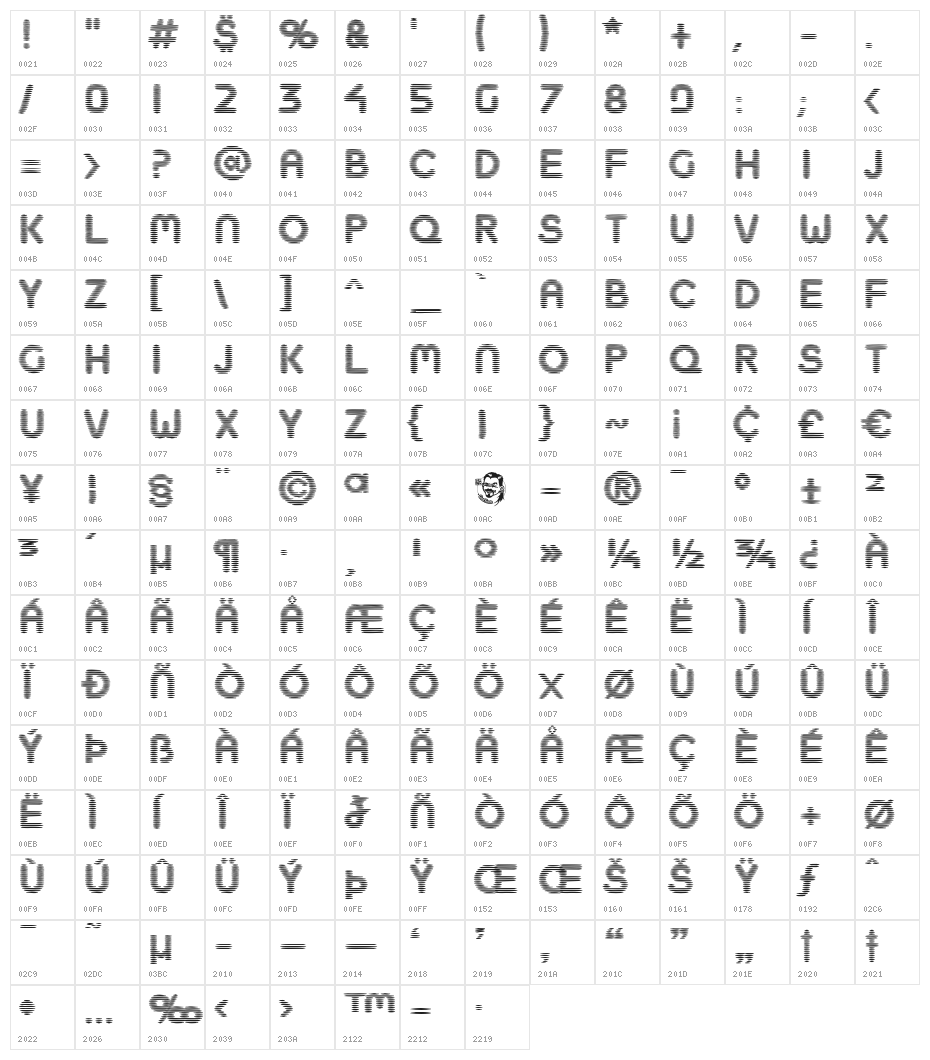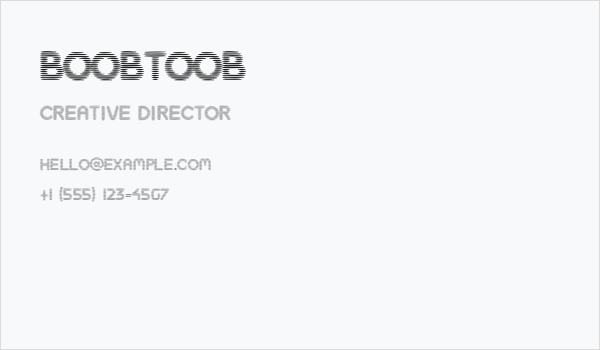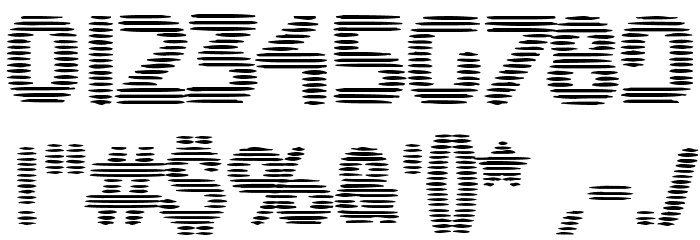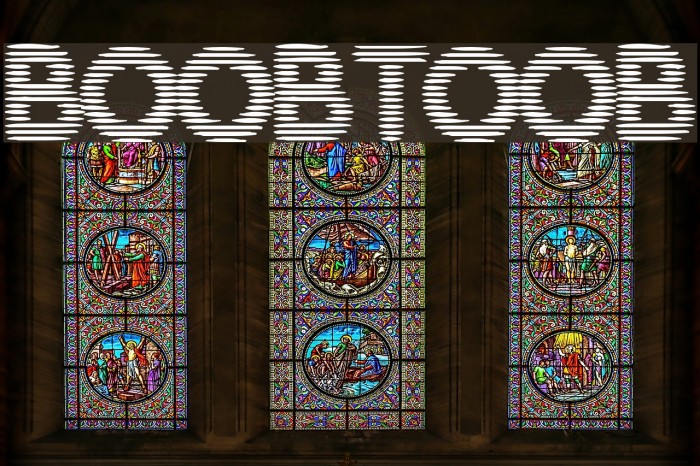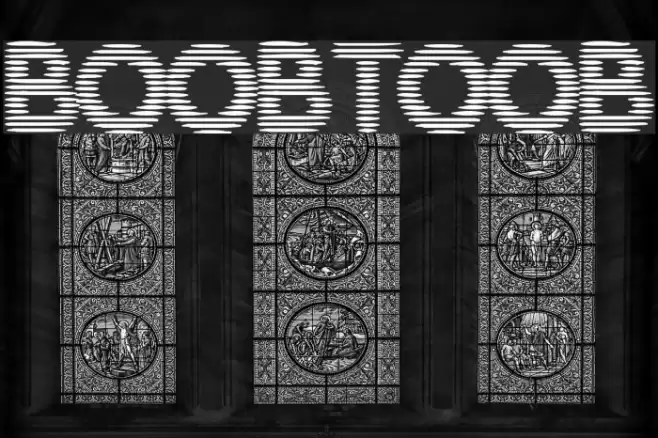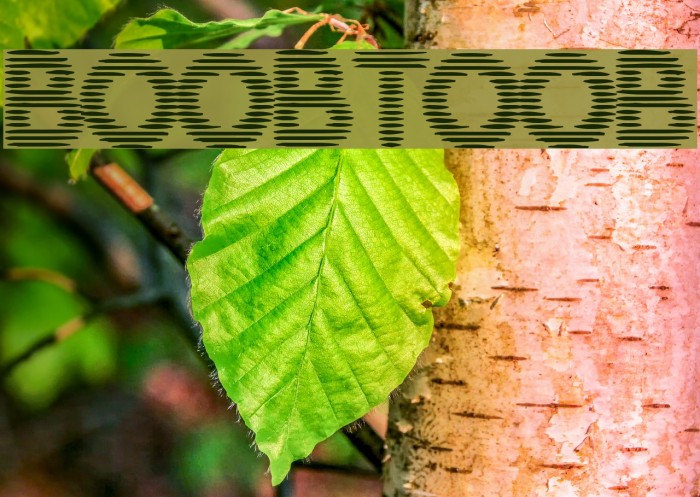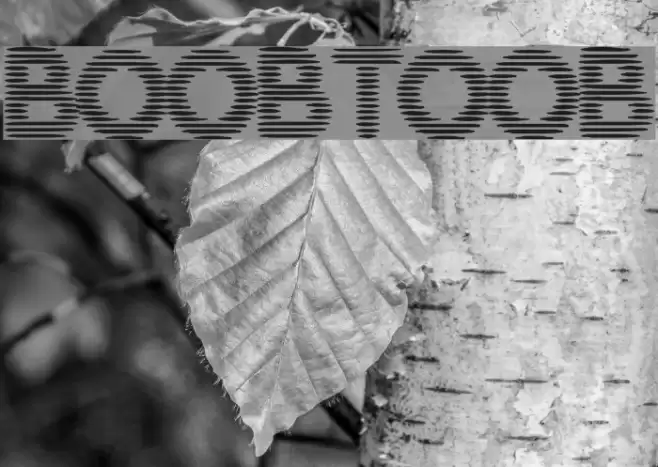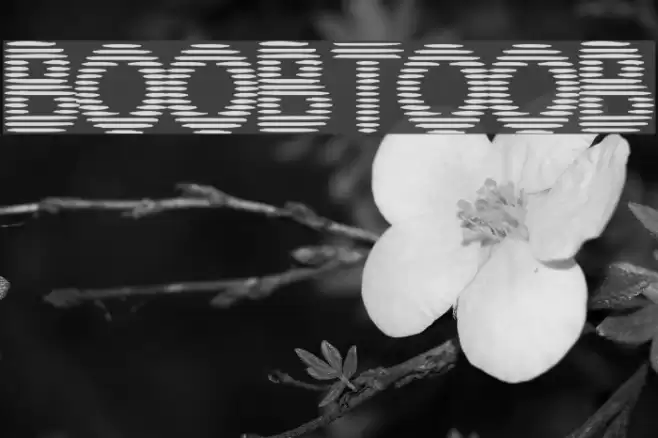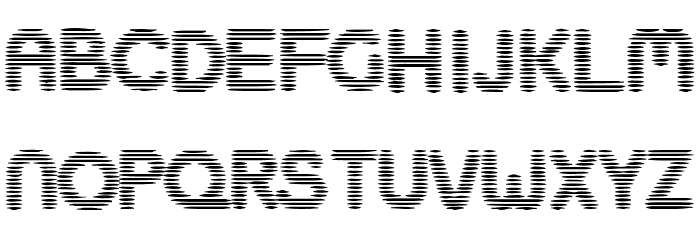
BoobToob Font
BoobToob Description
This font features a unique, futuristic design characterized by horizontal lines that create a digital, glitch-like effect. Each character is composed of segmented strokes, giving it a dynamic and modern appearance. The uppercase and lowercase letters maintain a consistent style, with rounded edges and a bold presence. The numbers and special characters follow the same design principles, ensuring uniformity across the typeface. This font is particularly eye-catching and would stand out in any digital or print medium.
| Proposed Projects | Ideal for digital art, tech-themed posters, video game graphics, and modern branding projects. |